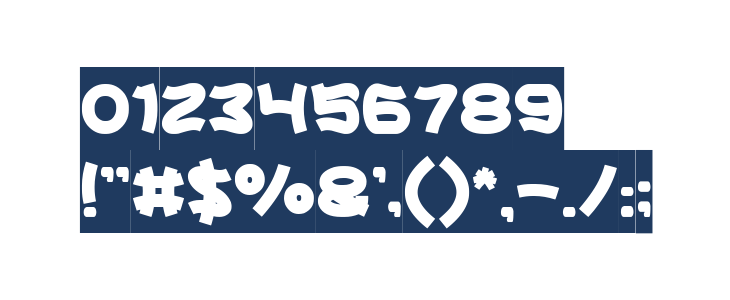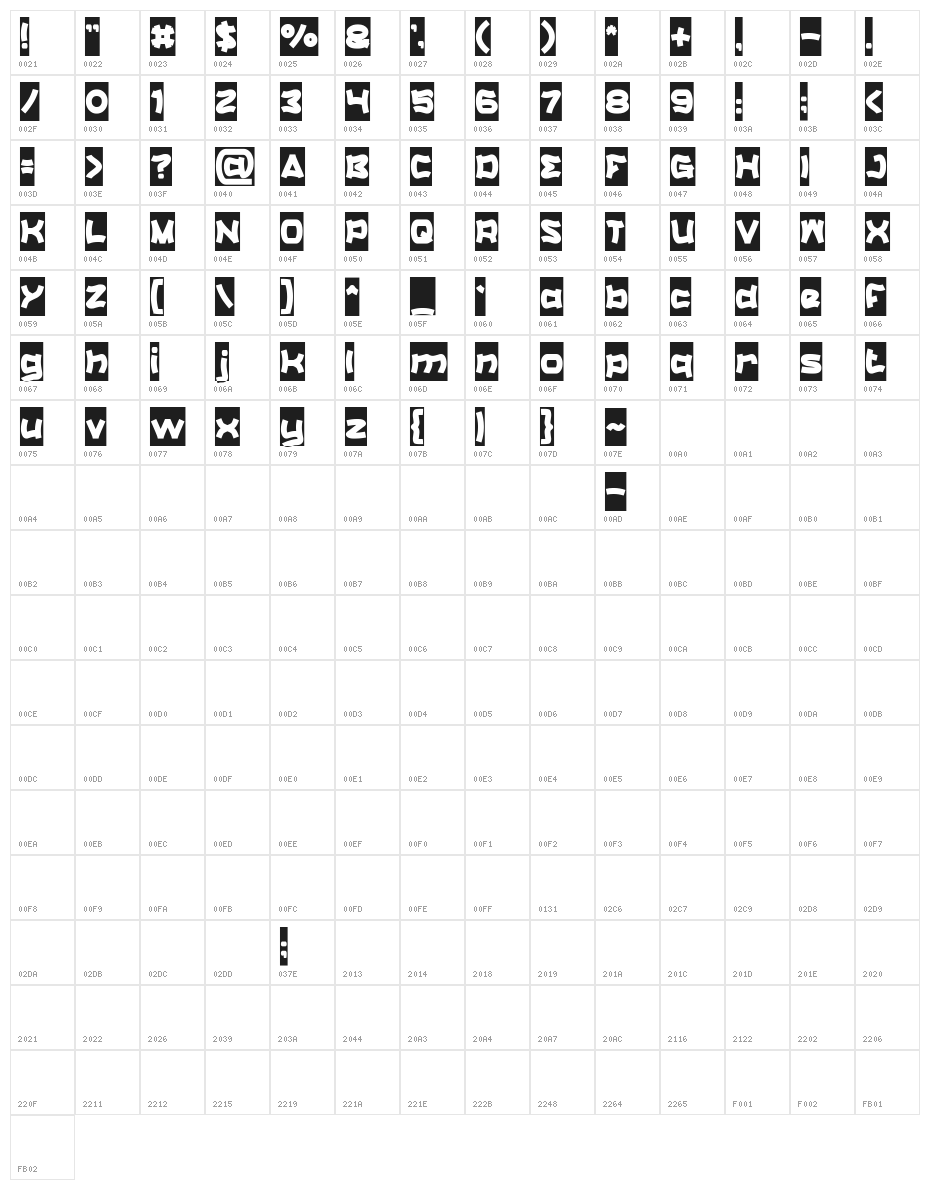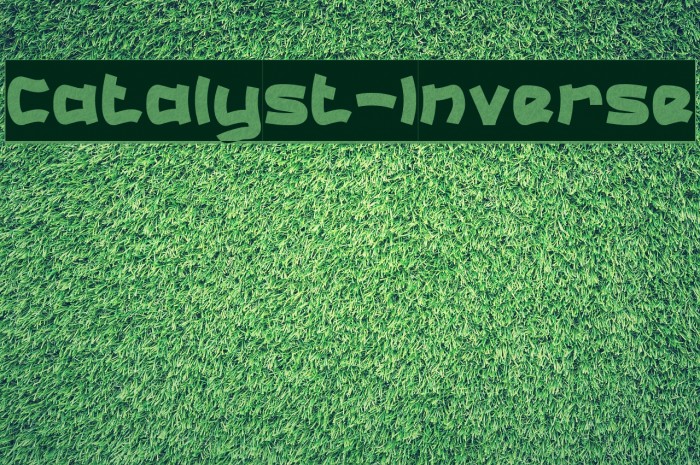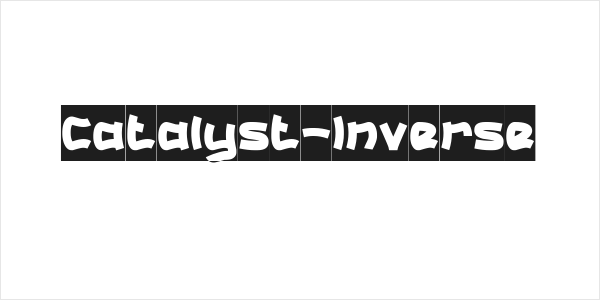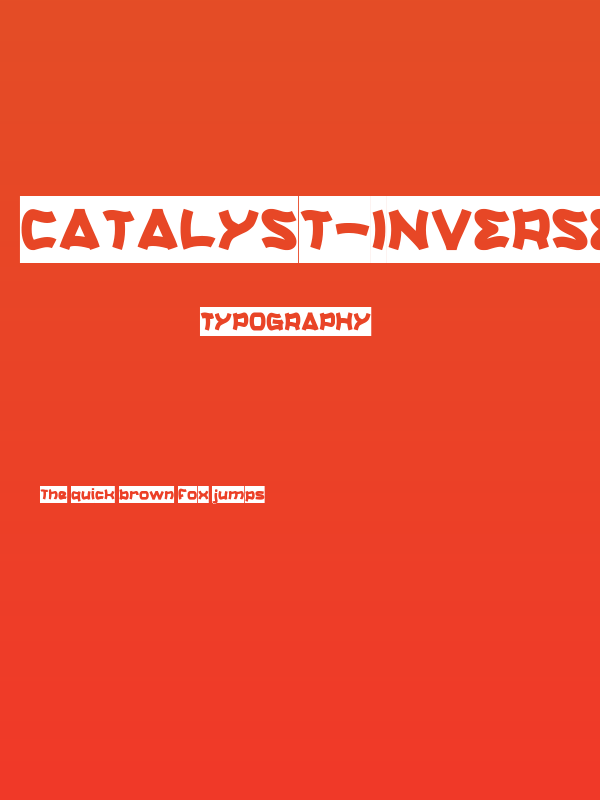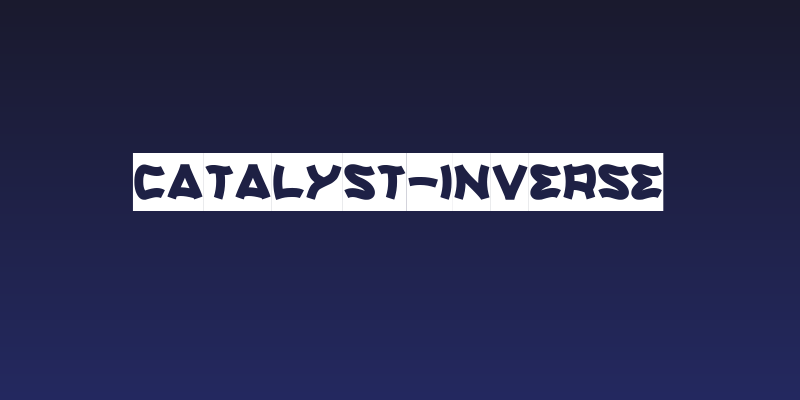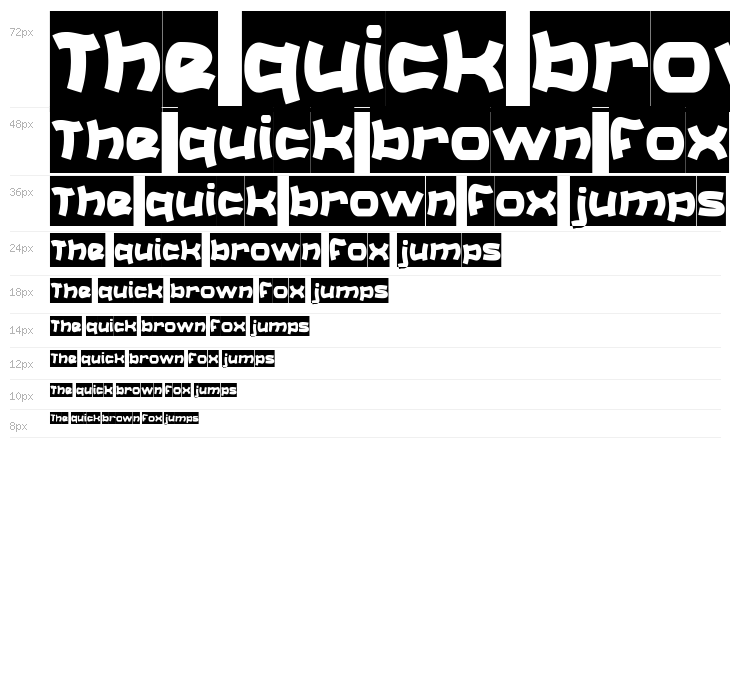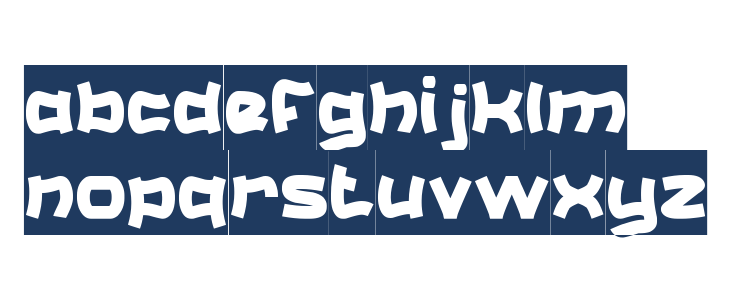
Catalyst-Inverse Font
Catalyst-Inverse Description
This font features a bold and dynamic style with a playful, almost cartoonish appearance. The letters have a unique, irregular shape that gives them a lively and energetic feel. The strokes are thick and consistent, with a slight inward curve on some characters, adding to the whimsical nature of the design. The font maintains a strong presence with its bold weight, making it suitable for eye-catching headlines and creative projects. The characters are well-spaced, ensuring readability while retaining their distinctive style. The numbers and special characters follow the same playful design, making them cohesive with the alphabet.
| Overall Style | Playful, Cartoonish |
| Proposed Projects | Ideal for children's books, comic strips, playful branding, and eye-catching posters. |